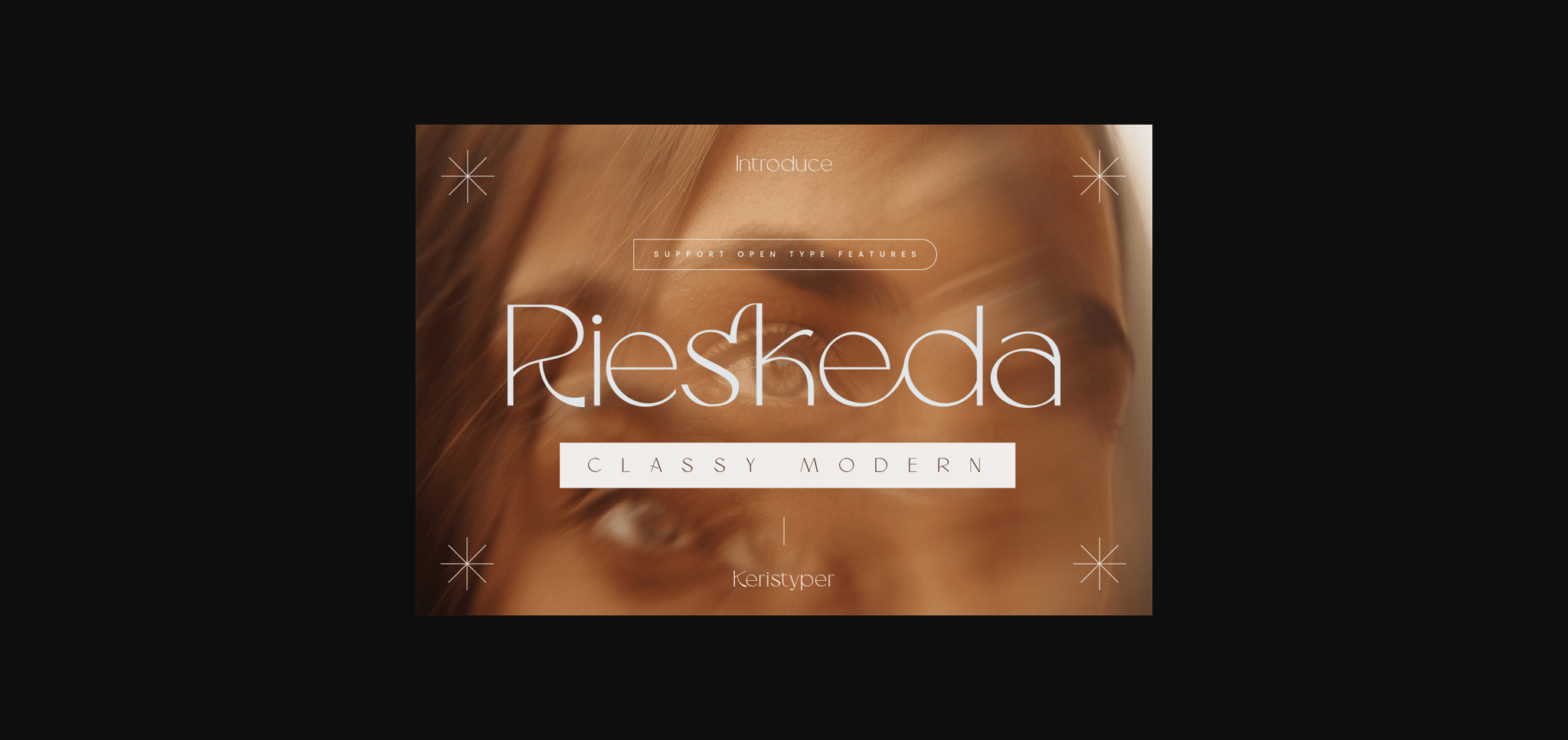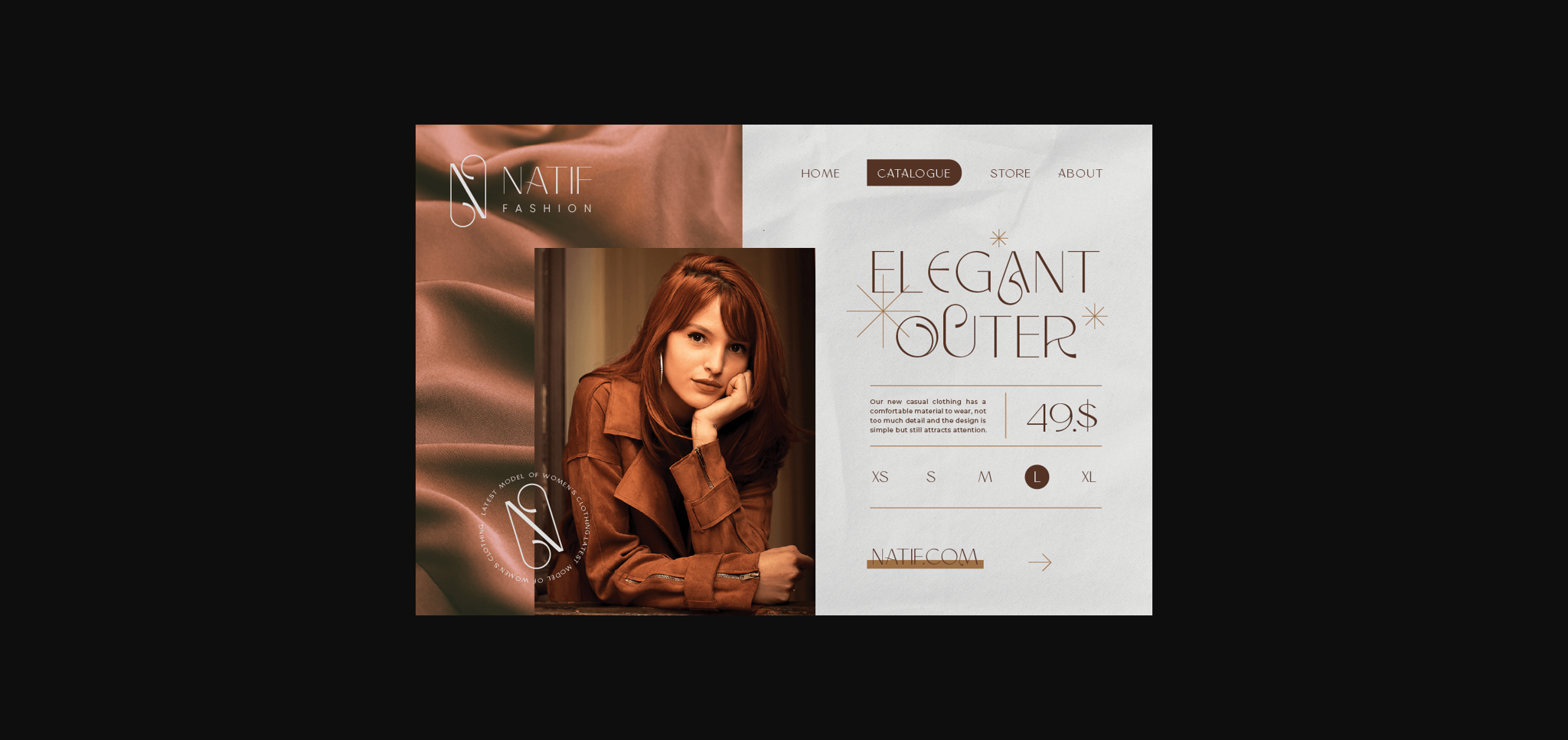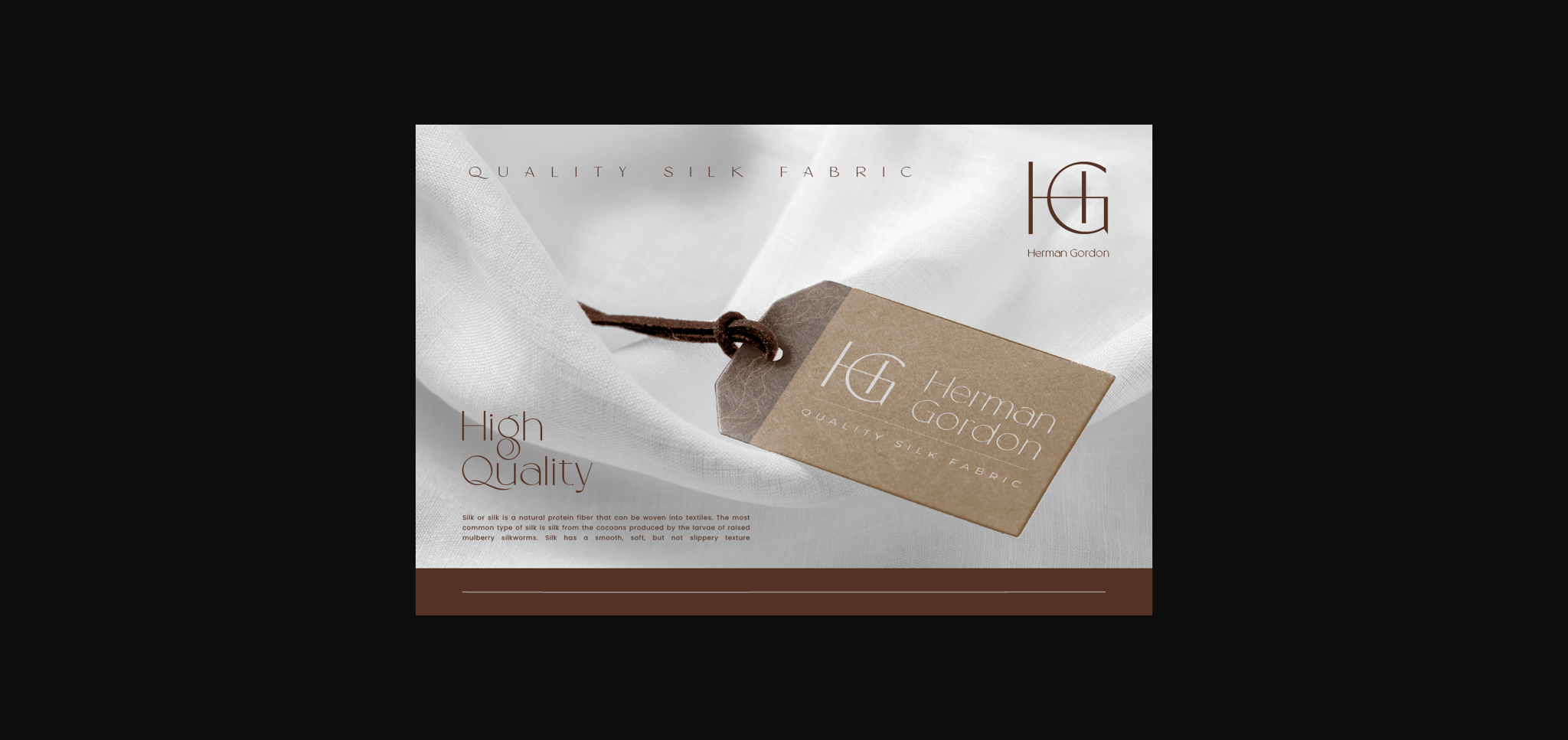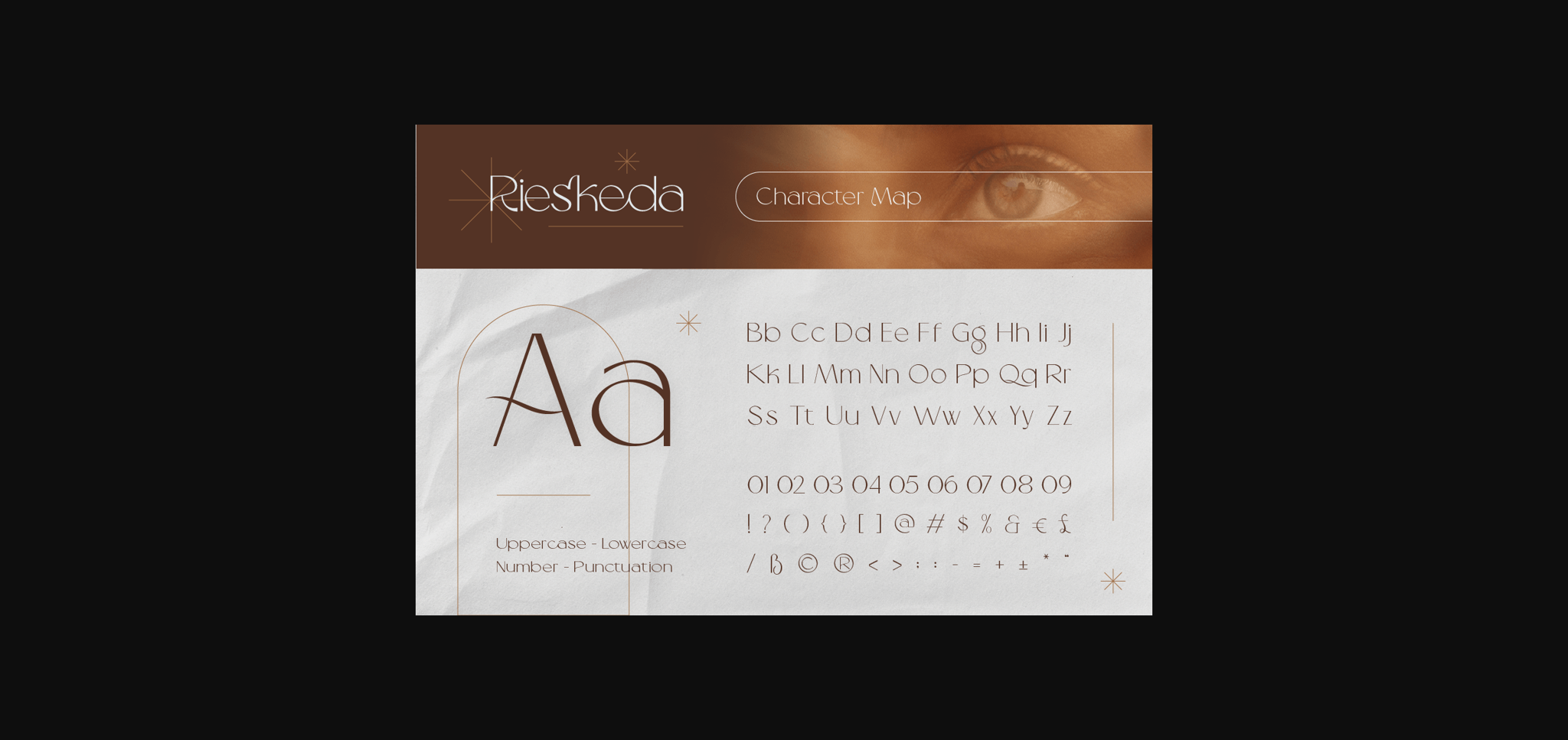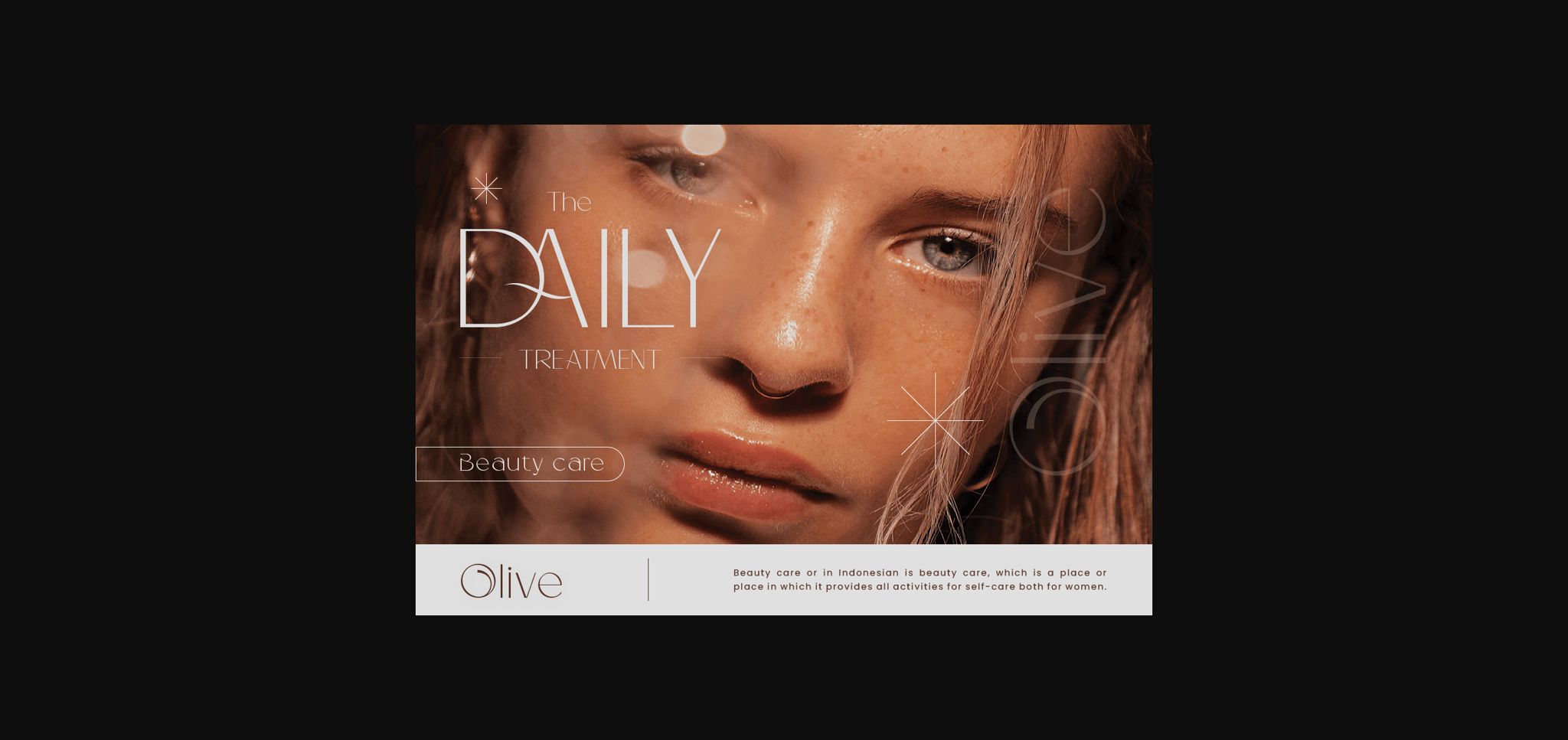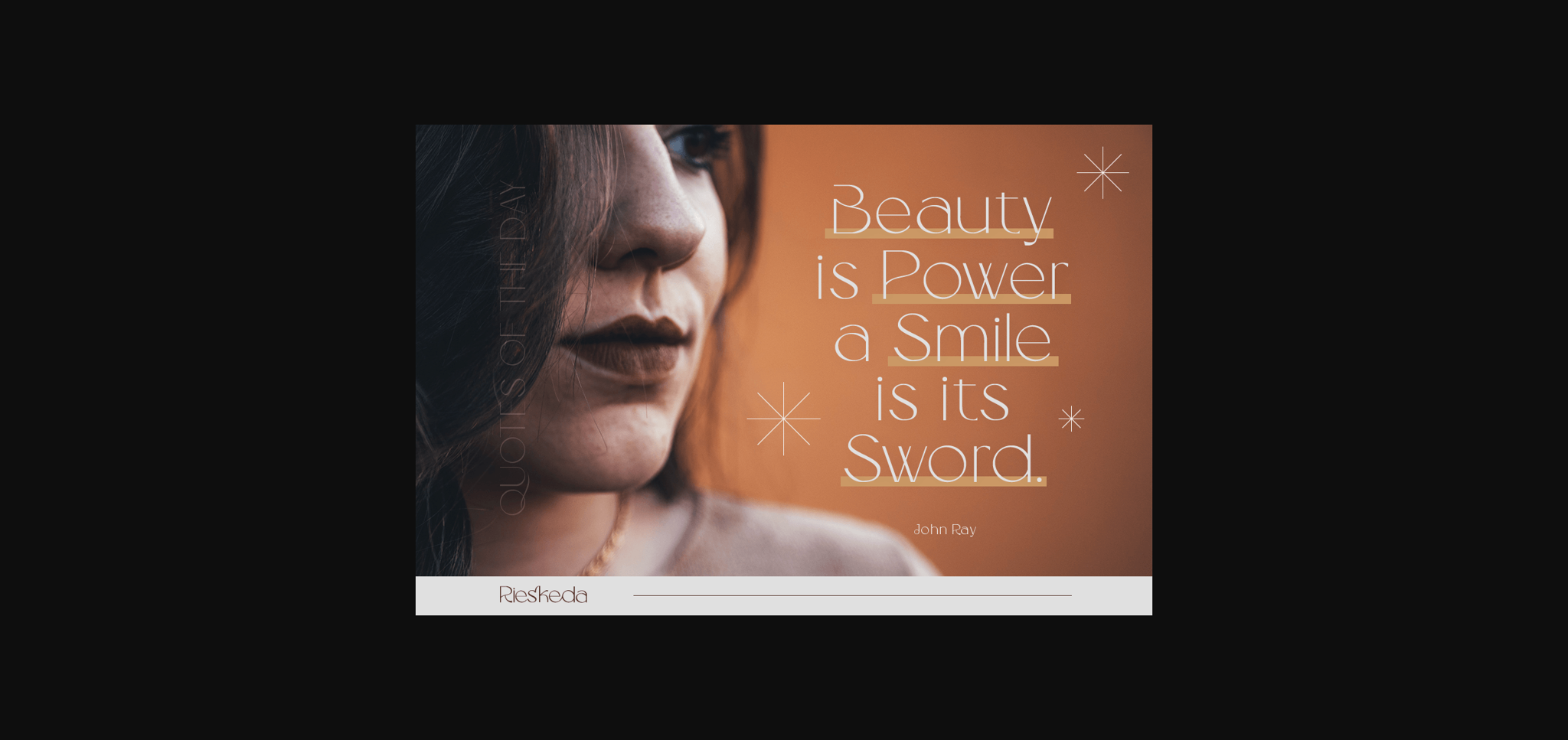
Rieskeda Font
About Rieskeda Font
Rieskeda is an elegant, luxurious sans serif font. Its sophisticated appearance makes it suitable for a wide range of fashionable, chic designs.